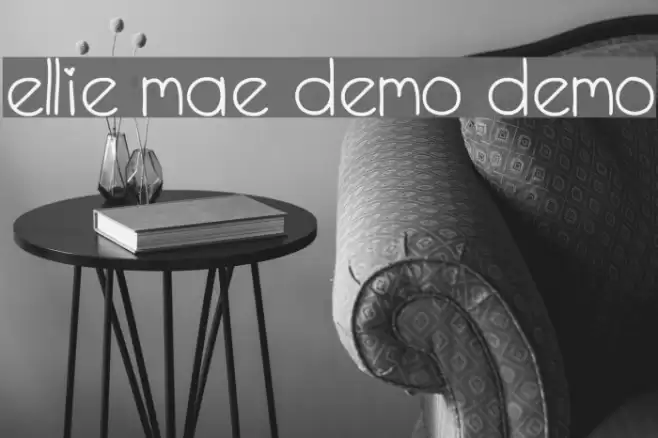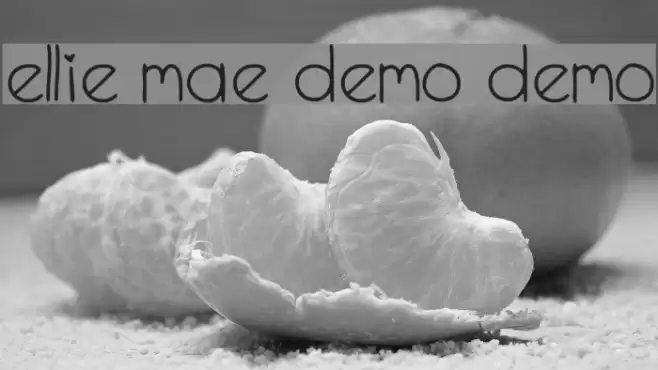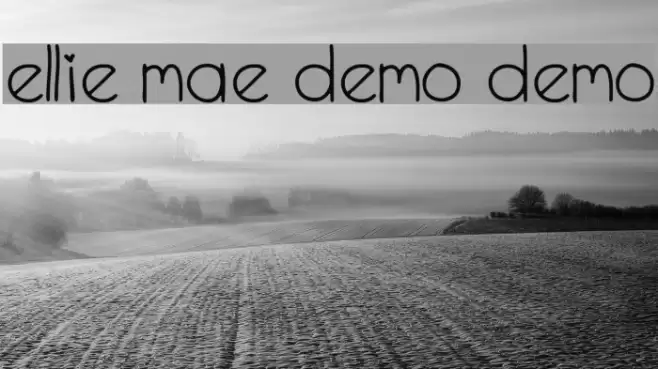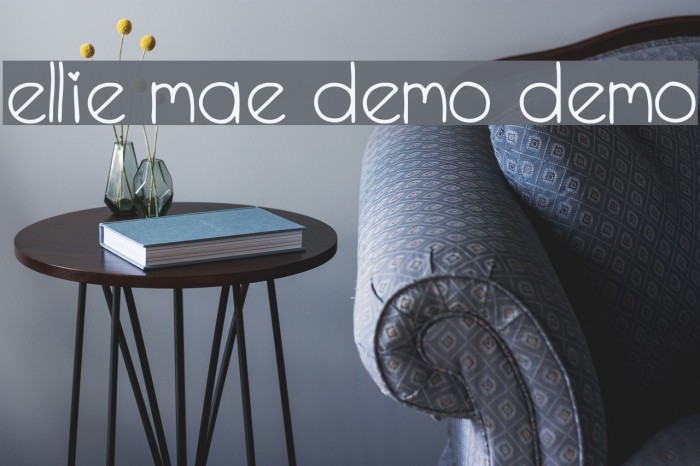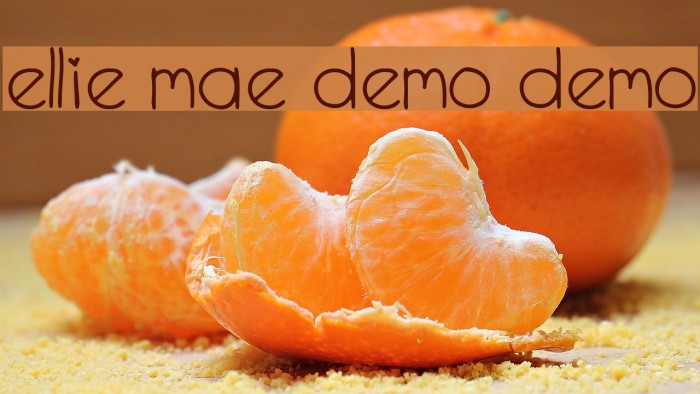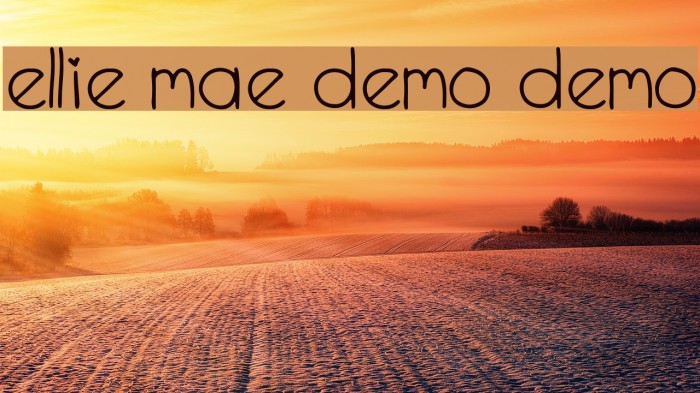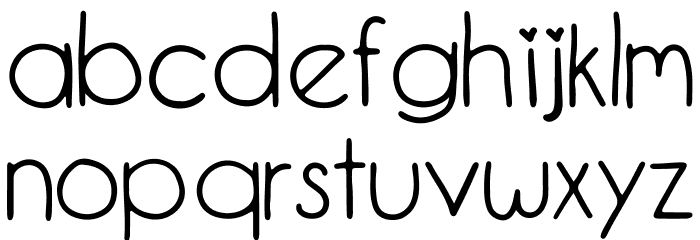
Ellie Mae Demo Demo Font
Ellie Mae Demo Demo Description
This playful and whimsical font features a handwritten style with a friendly and approachable appearance. The characters are rounded and slightly irregular, giving them a casual and informal look. The font includes both uppercase and lowercase letters, with a consistent stroke width that maintains readability while adding a touch of charm. The letters are well-spaced, ensuring clarity and ease of reading. This font is perfect for projects that require a personal and inviting touch, such as children's books, greeting cards, or creative branding.
A playful handwritten font with rounded, informal characters from Handwritten fonts.
- Proposed Projects: Ideal for children's books, greeting cards, and creative branding.
- Overall Style: Casual